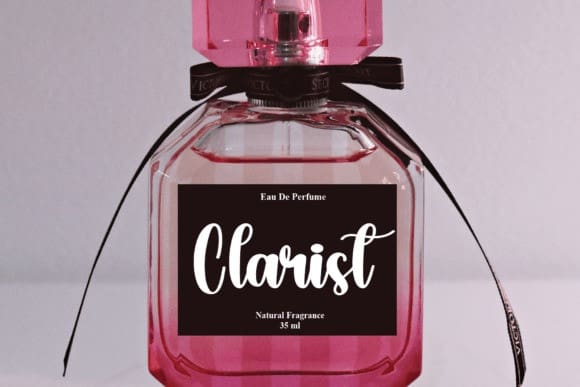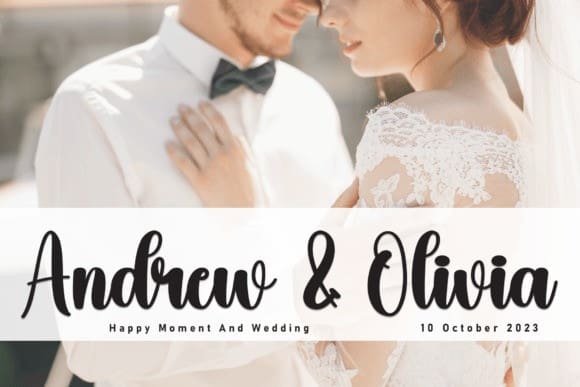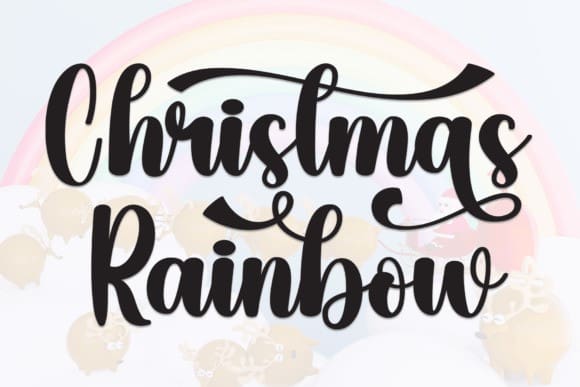
Christmas Rainbow Font
Christmas Rainbow Font is a sweet and friendly handwritten font. Its natural and unique style makes it incredibly fitting to a large pool of designs. The only limit is your imagination!